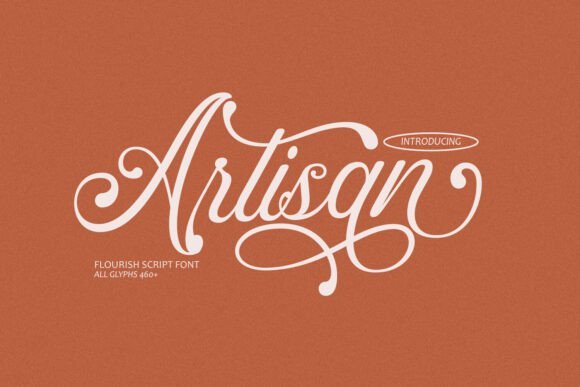
Unlock the Timeless Charm of Artisan Font
Have you ever stumbled upon a beautiful hand-painted sign or a bespoke wedding invitation and felt a rush of inspiration? That’s what happens when you come across something truly unique and crafted with love. As designers, we’re always on the lookout for fonts that capture the essence of our creative vision, and that’s where the Artisan Font comes in.
This stunning flourish script font embodies the spirit of craftsmanship and creativity, making it perfect for projects that require a personal and artistic touch. Whether you’re designing a logo, packaging, or a wedding invitation, Artisan Font adds a timeless charm that resonates with elegance and finesse. Its versatility and beauty make it a valuable addition to any designer’s toolkit, and its handcrafted feel ensures that your message is delivered with style and sophistication.
Artisan Font Key Features
- Font Family: Artisan is a script font designed to evoke a sense of elegance and sophistication.
- Unique Characteristics: Features a unique blend of handwritten and brush script styles, with subtle flourishes and connecting strokes, making it perfect for adding a touch of personality to designs.
Artisan Font Review
As a designer, I was excited to dive into the Artisan Font and see what it had to offer. Here’s my honest review.
- The Artisan Font has a beautiful, elegant aesthetic that would be perfect for luxury brands or high-end products.
- The font is highly customizable, with a range of weights and styles to choose from.
- The font is well-suited for both digital and print applications, making it a versatile choice for designers.
- The font may be too ornate for some designs, making it difficult to read at smaller sizes.
- The font lacks a clear, modern feel, which may make it less appealing to younger audiences.
- The font may require additional styling to work well in certain contexts, such as on websites or in social media posts.
The Artisan Font is a beautiful, high-end font that would be perfect for luxury brands or high-end products. However, it may not be the best choice for more modern or minimalist designs. With some careful styling and consideration, this font could be a great addition to any designer’s toolkit.
Use Artisan Font to add a touch of elegance to your designs. Experiment with different font sizes and colors to create a visually appealing effect.
Artisan Font is commonly used in wedding invitations, branding materials, and advertising campaigns. It can also be used in digital art, illustrations, and other creative projects.